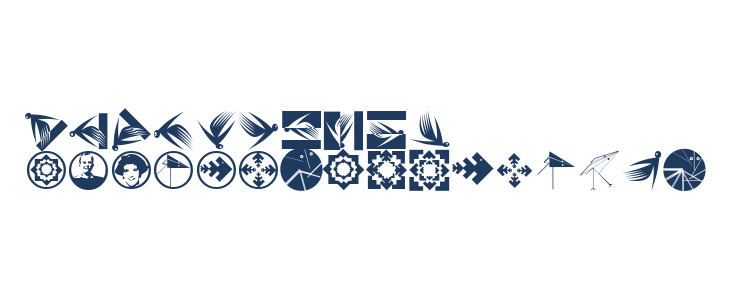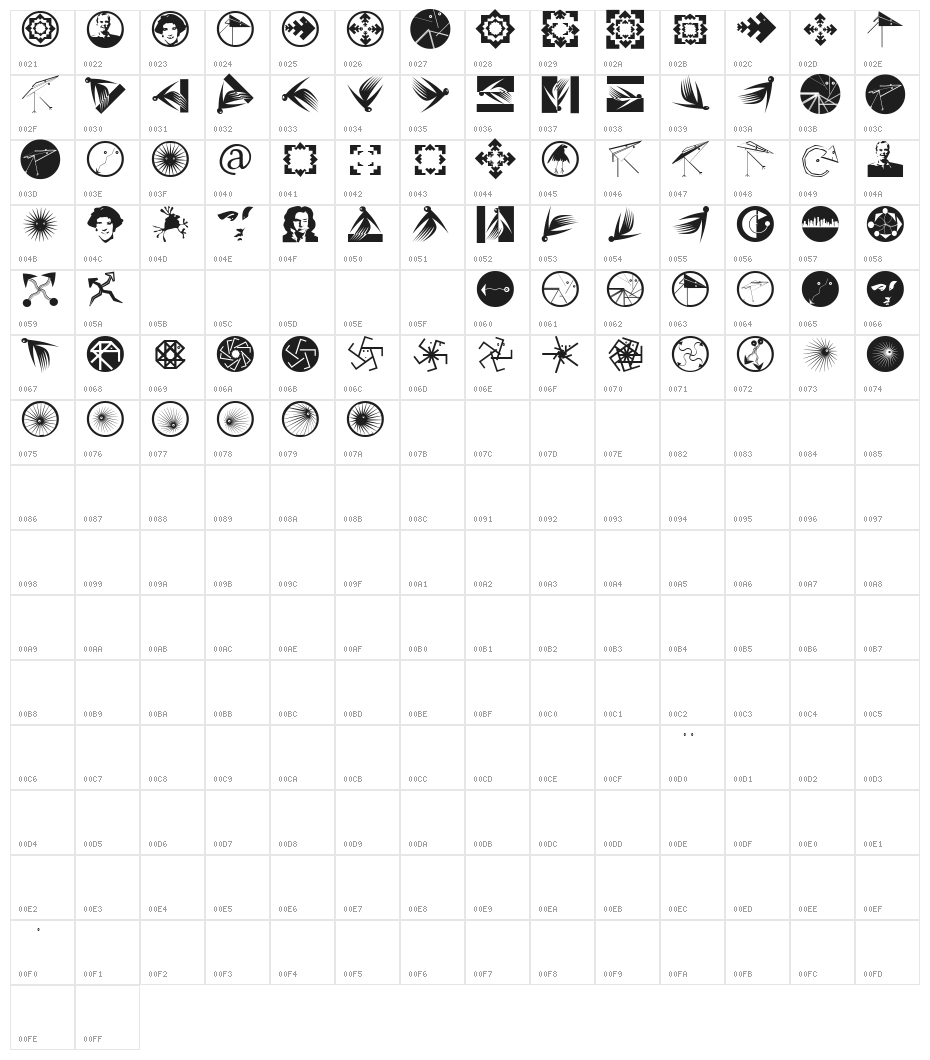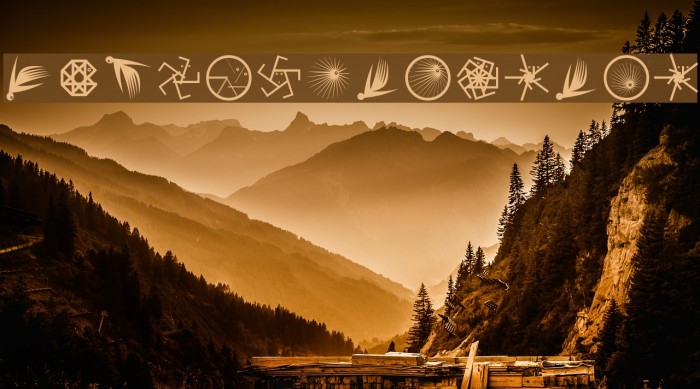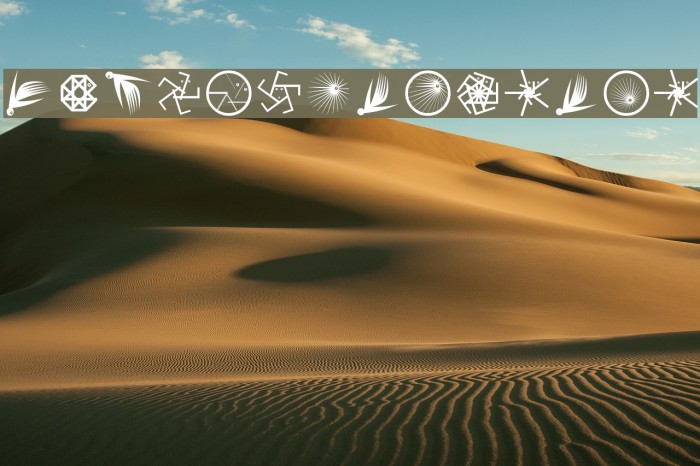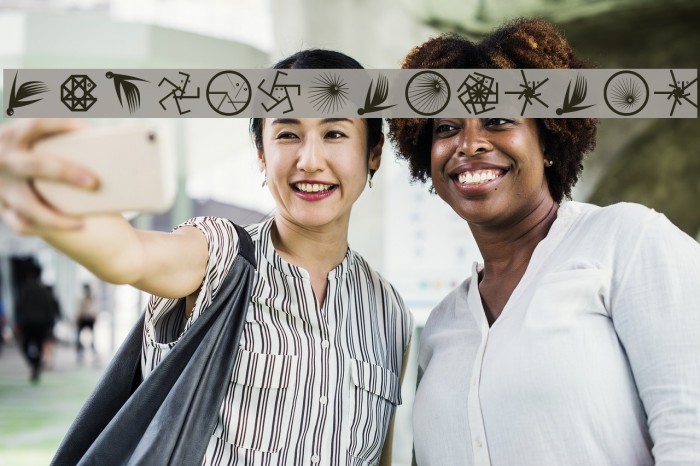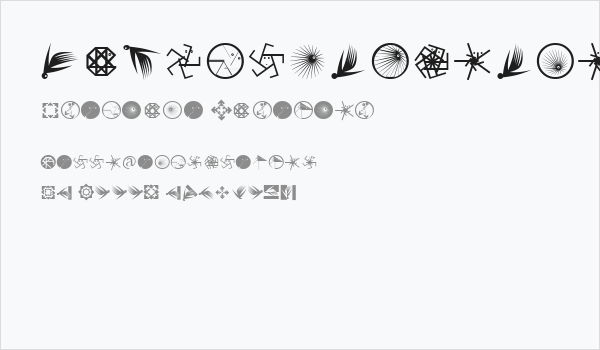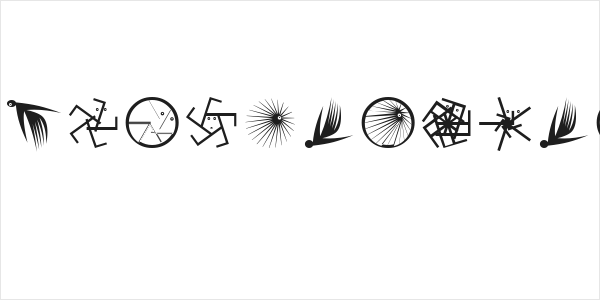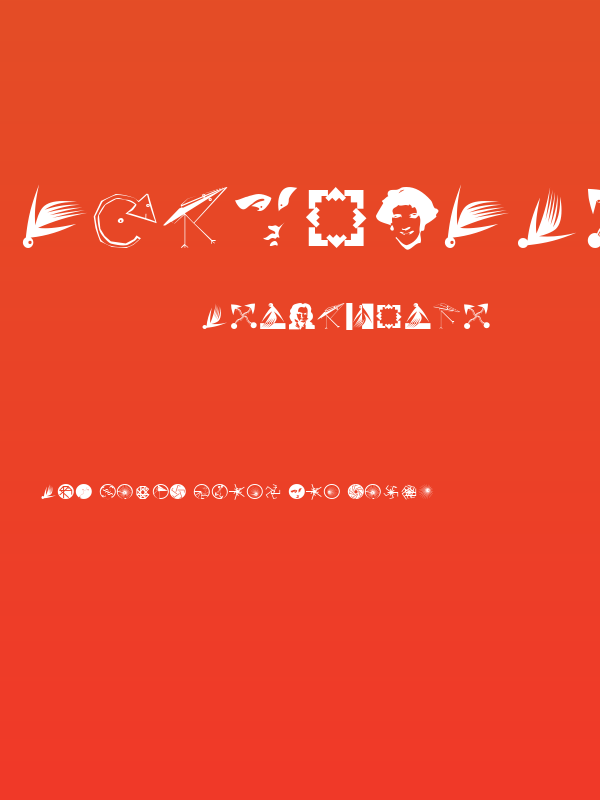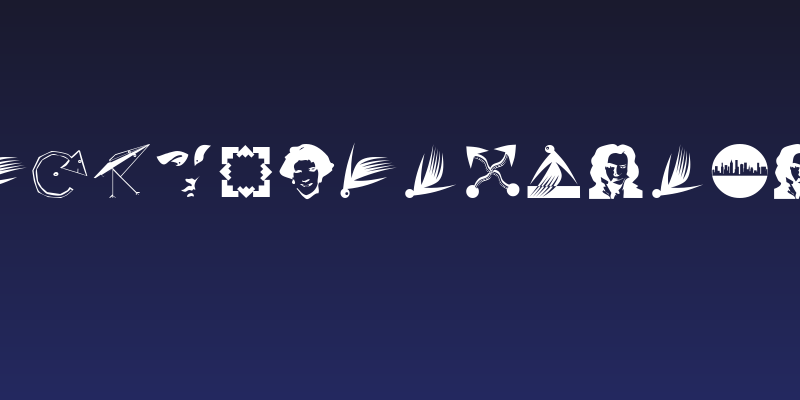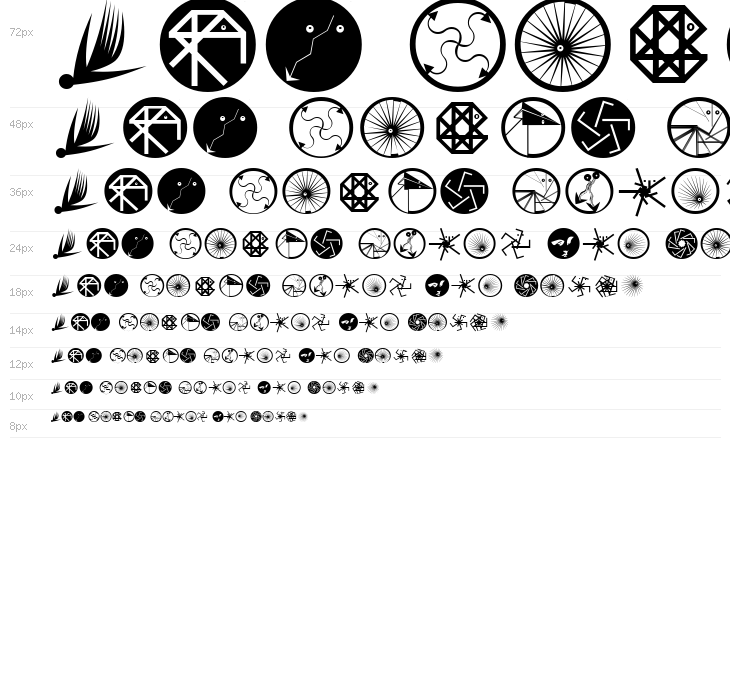
SignalsTypoTwo Font
SignalsTypoTwo Description
A highly decorative and eclectic dingbat font featuring a mix of abstract geometric shapes, stylized human faces, birds, sunbursts, and various pictograms. Each character is a unique symbol or illustration, with strong contrasts and bold black-and-white fills. The style is playful and experimental, with a focus on visual impact rather than legibility.
| Overall Style | Decorative, Modern, Experimental |
| Use Case | Logos, Posters, Decorative elements, Icons |
| Proposed Projects | Posters, album covers, branding for creative industries, event graphics, editorial illustrations, icon sets. |